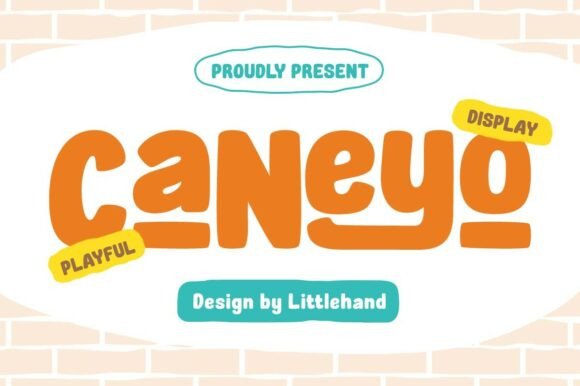
Meet Caneyo: The Boldly Playful Font That’s Full of Spirit
Have you ever been in the middle of a design project, and suddenly, you’re stuck on finding the perfect font? I recall a recent experience where I was working on a vibrant packaging design for a client’s new product line. The brief was clear: make it fun, youthful, and energetic. I scoured through countless font libraries, but nothing seemed to capture the essence I was looking for. That’s when I stumbled upon Caneyo, a bold, playful font that instantly brought my design to life.
A First Impression: What Makes Caneyo Special
Caneyo is more than just a font; it’s a design statement. With its chunky shapes, soft corners, and bouncy letterforms, it exudes friendliness, confidence, and energy. Imagine colorful cut-paper titles on a creative board—that’s what Caneyo brings to your designs. The thick strokes provide strong visibility, while the rounded details keep everything warm and approachable. This unique combination makes Caneyo an absolute standout for youth-oriented branding, vibrant packaging, party invitations, and bold social media headlines.
What I Love About Caneyo ✨
• ✅ Instant Fun: Caneyo adds a playful touch to any design, making it perfect for projects that need a youthful vibe.
• ✅ Versatility: Its friendly and energetic feel makes it suitable for a wide range of applications, from branding to social media headlines.
• ✅ Readability: The thick strokes and clear letterforms ensure that your message is always visible and easy to read.
• ✅ Unique Style: Caneyo’s rounded corners and friendly weight give it a distinct personality that’s hard to replicate with other fonts.
• ⚠️ Legibility at Small Sizes: While Caneyo is fantastic at larger sizes, it can lose some legibility when used at very small sizes. It’s best used at 24px or larger for optimal impact.
• ⚠️ Overuse: Like any bold font, Caneyo can be overwhelming if overused. Balance it with simpler fonts to maintain visual hierarchy.
4. Experiment with Caneyo’s OpenType features, such as stylistic alternates, to add more variety to your text.
Caneyo was designed with the intention of capturing the essence of playful creativity. Imagine a world where colorful papers are cut into fun shapes and glued onto a board to create an eye-catching title—that’s the inspiration behind Caneyo. The designer aimed to translate this tactile, hands-on feel into a digital font that’s both energetic and approachable. Whether you’re designing for youth-oriented brands or creating vibrant party invitations, Caneyo brings a sense of joy and spontaneity to your projects.
Q: What makes Caneyo suitable for youth-oriented branding?
A: Caneyo’s playful and energetic design, characterized by chunky shapes and soft corners, resonates well with younger audiences. Its friendly and approachable feel makes it perfect for brands targeting a youthful demographic.
Q: Does Caneyo support OpenType features?
A: Yes, Caneyo supports OpenType features, including stylistic alternates and glyphs. This allows you to add more variety to your text and customize your designs further.
Q: Is Caneyo legible at small sizes?
A: While Caneyo is best used at larger sizes (24px or larger) for optimal impact, it can be used at smaller sizes with some adjustments. However, keep in mind that legibility may decrease at very small sizes.